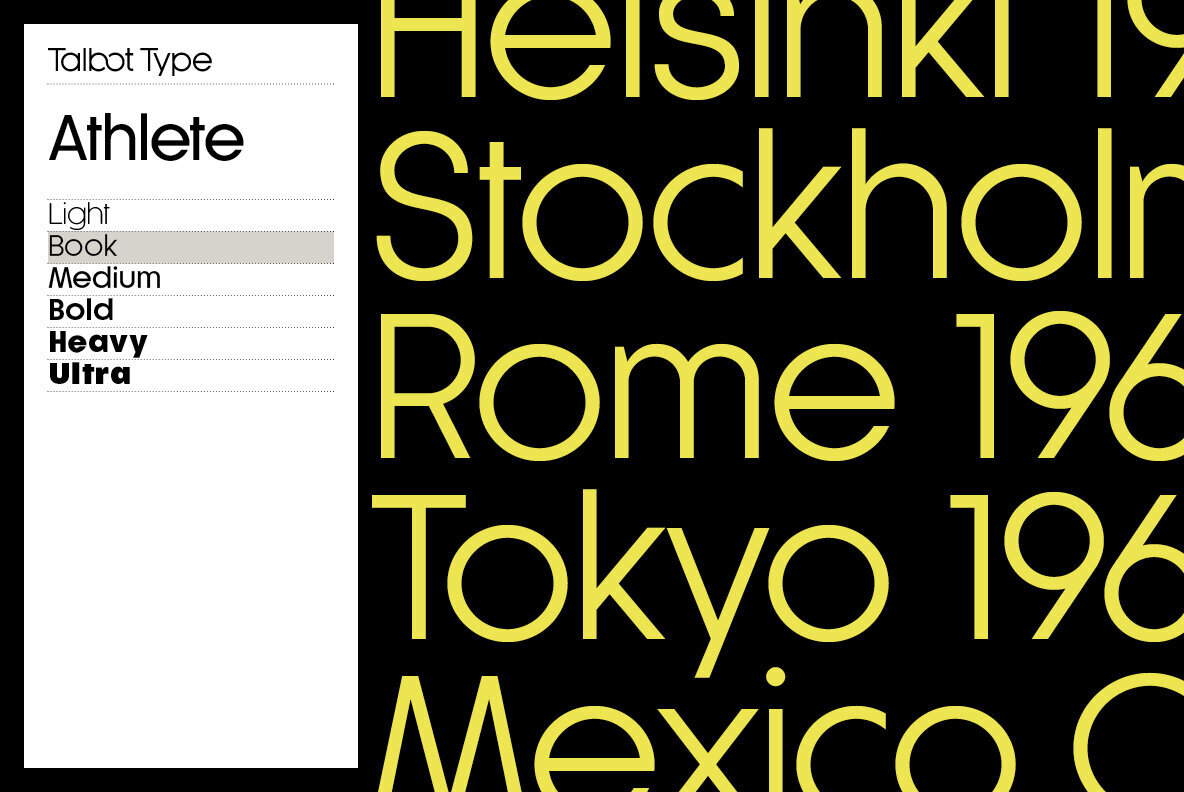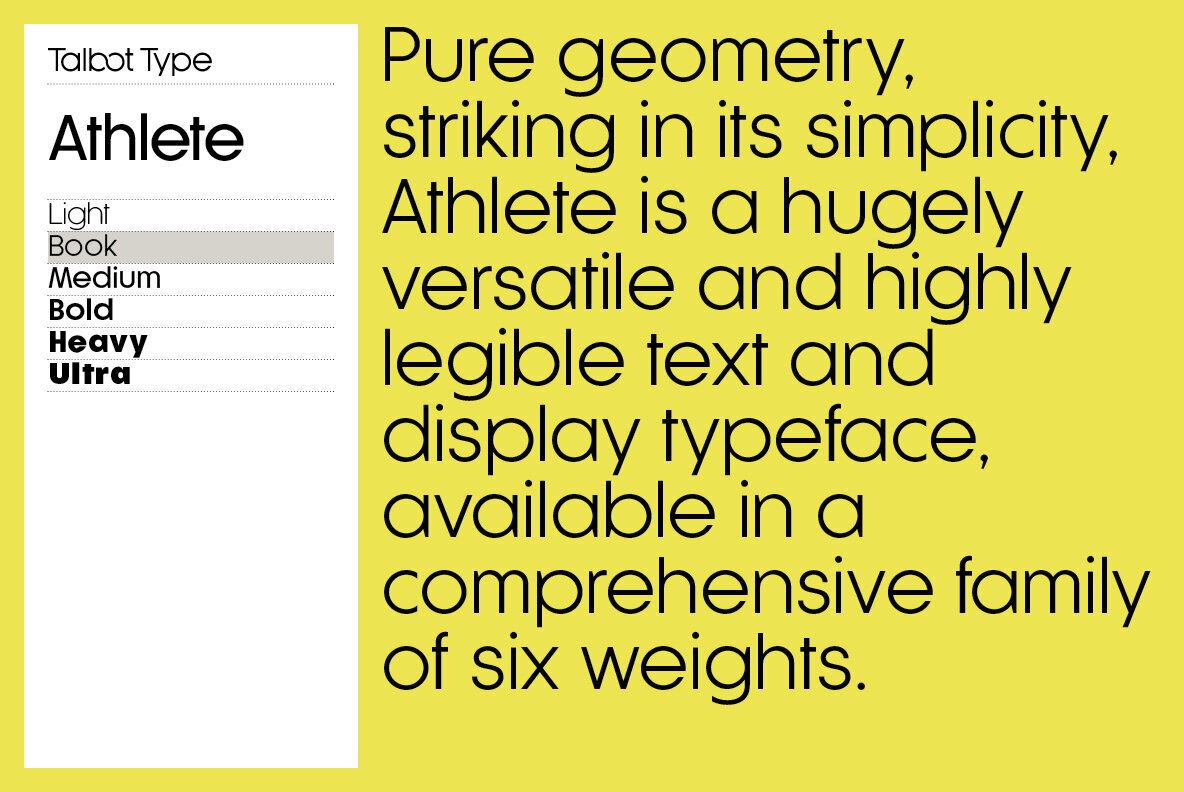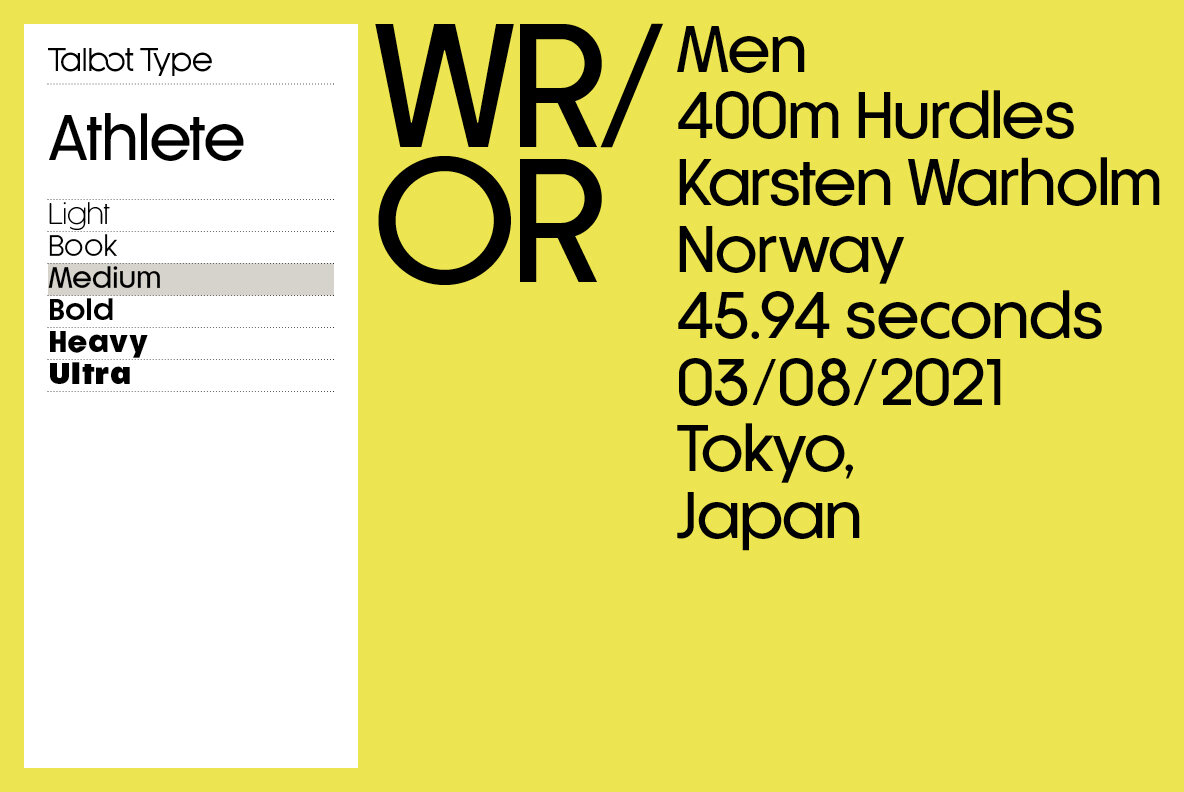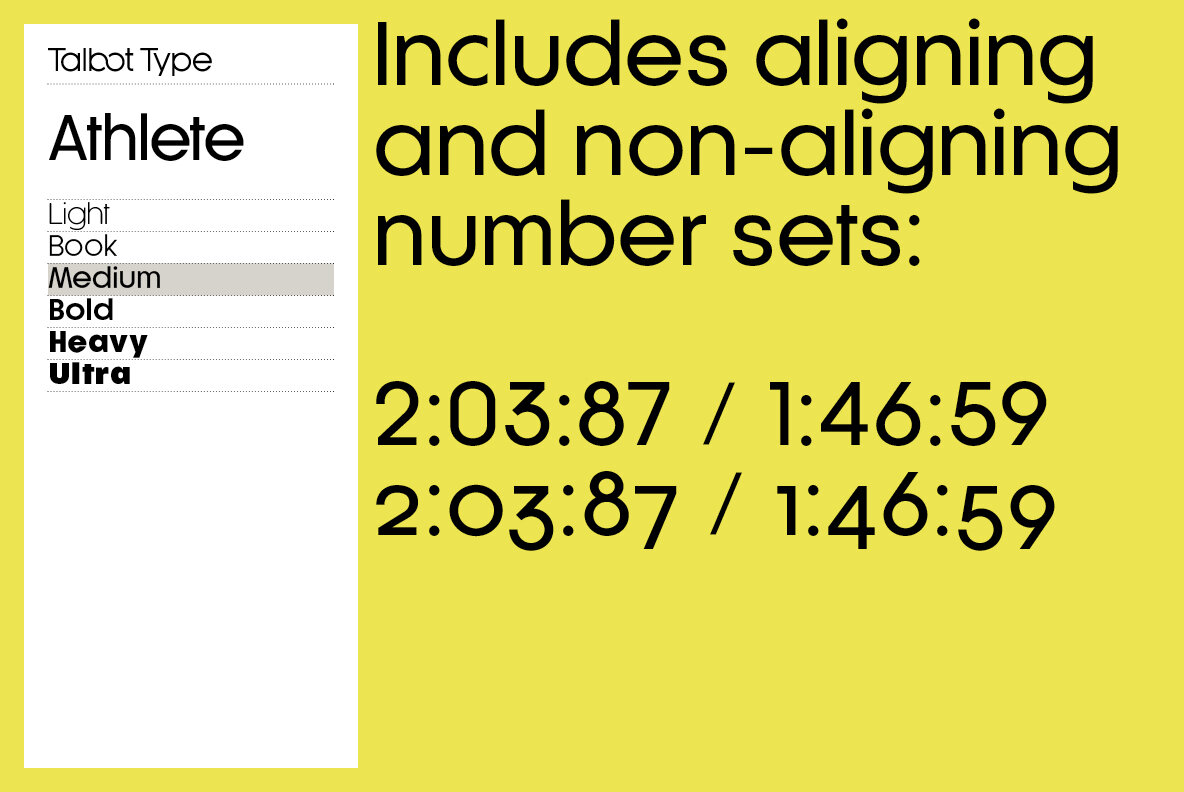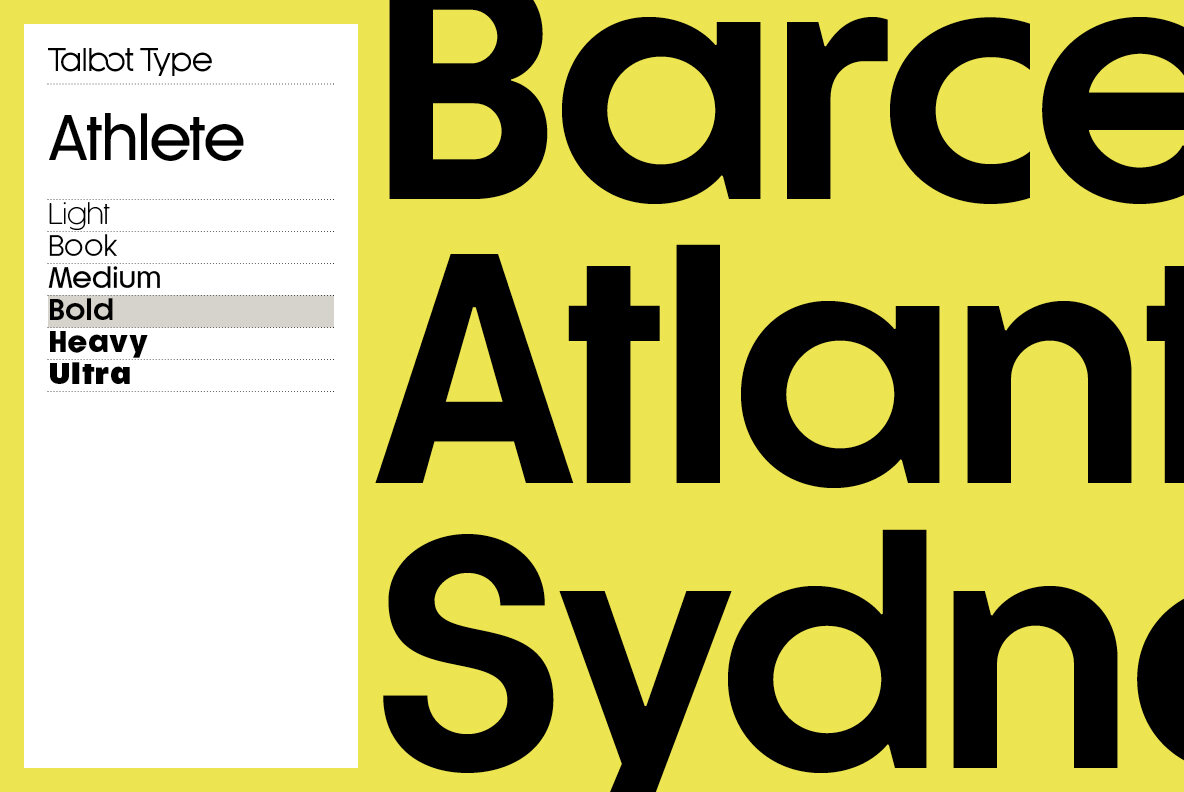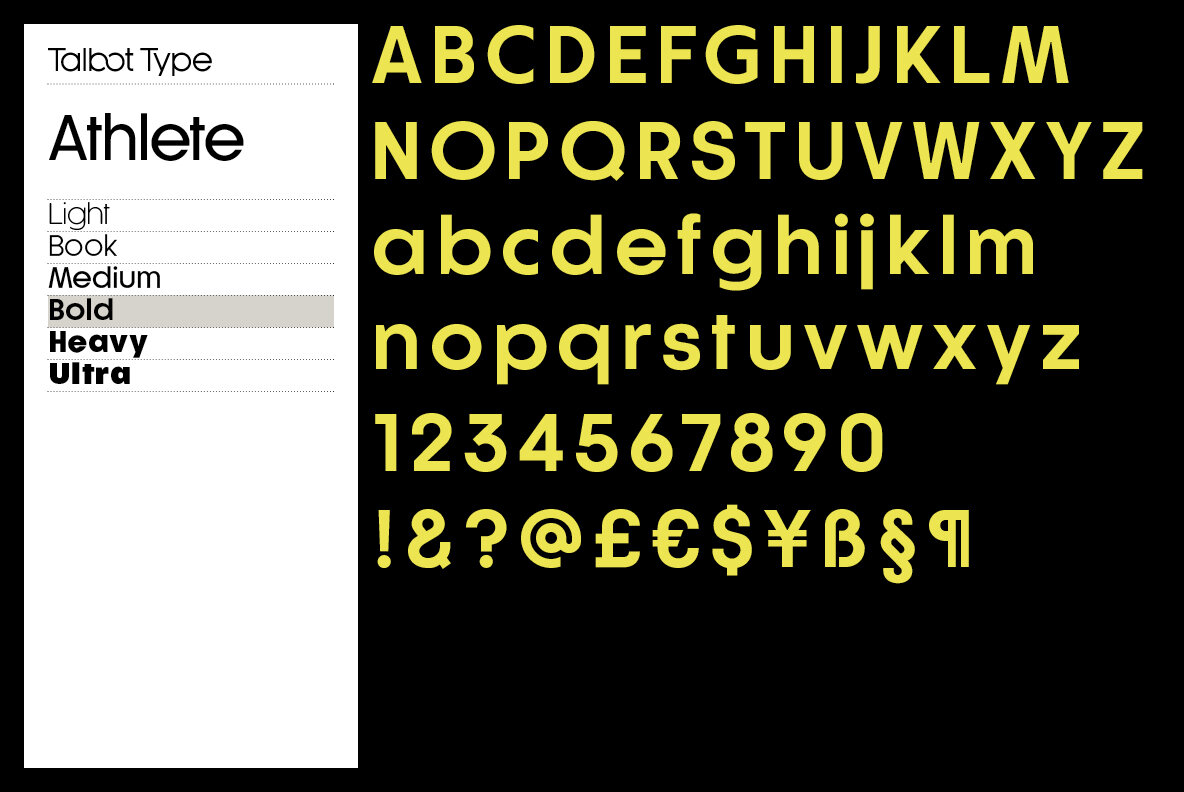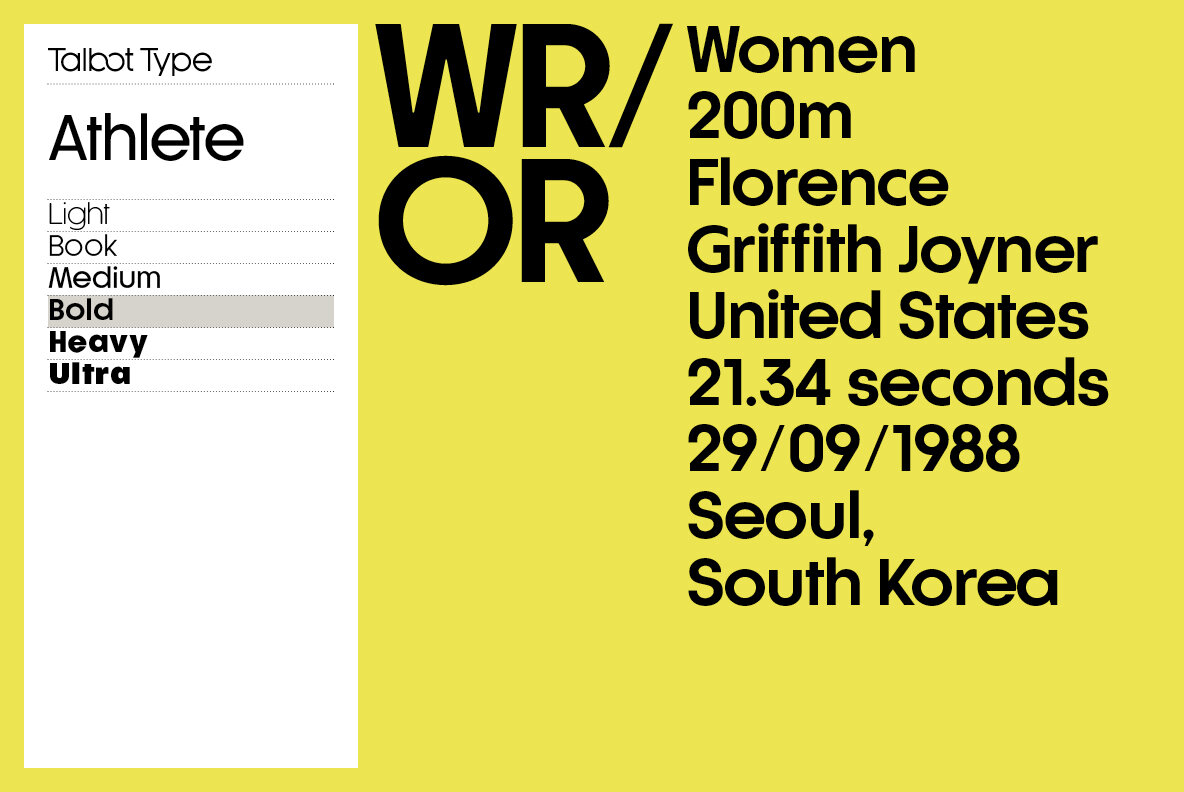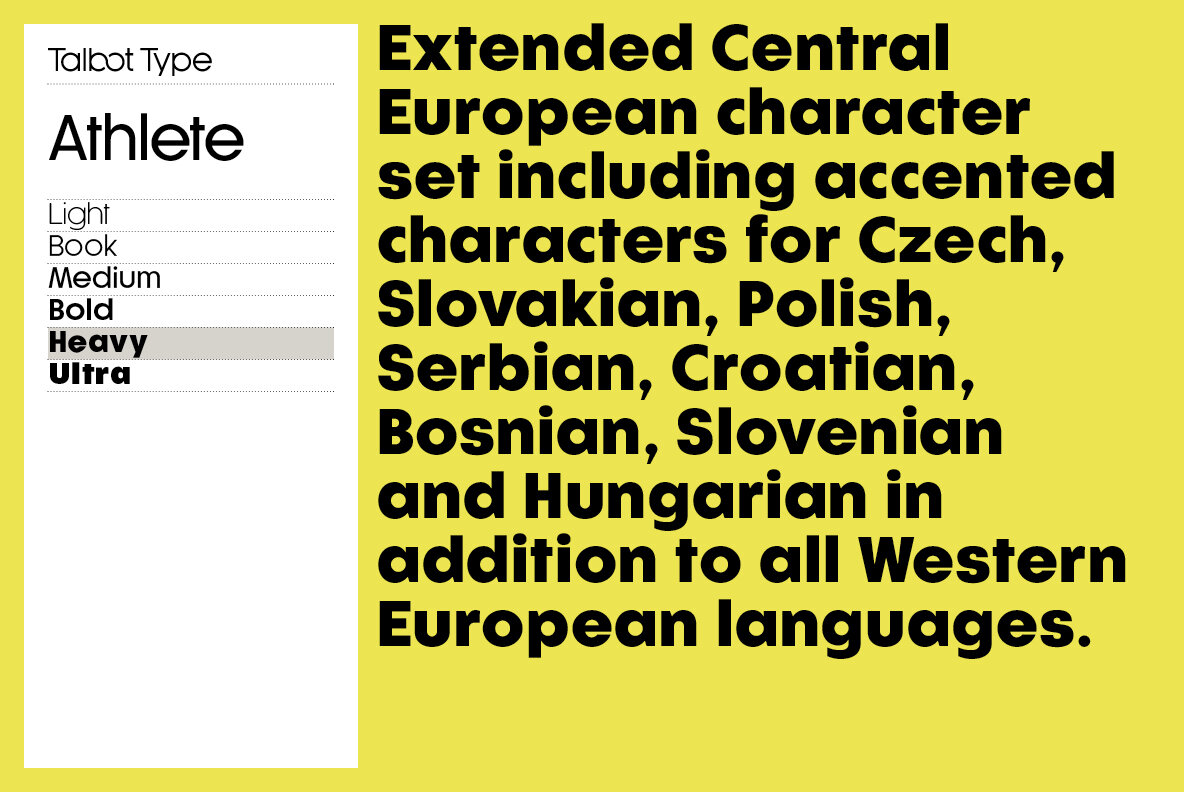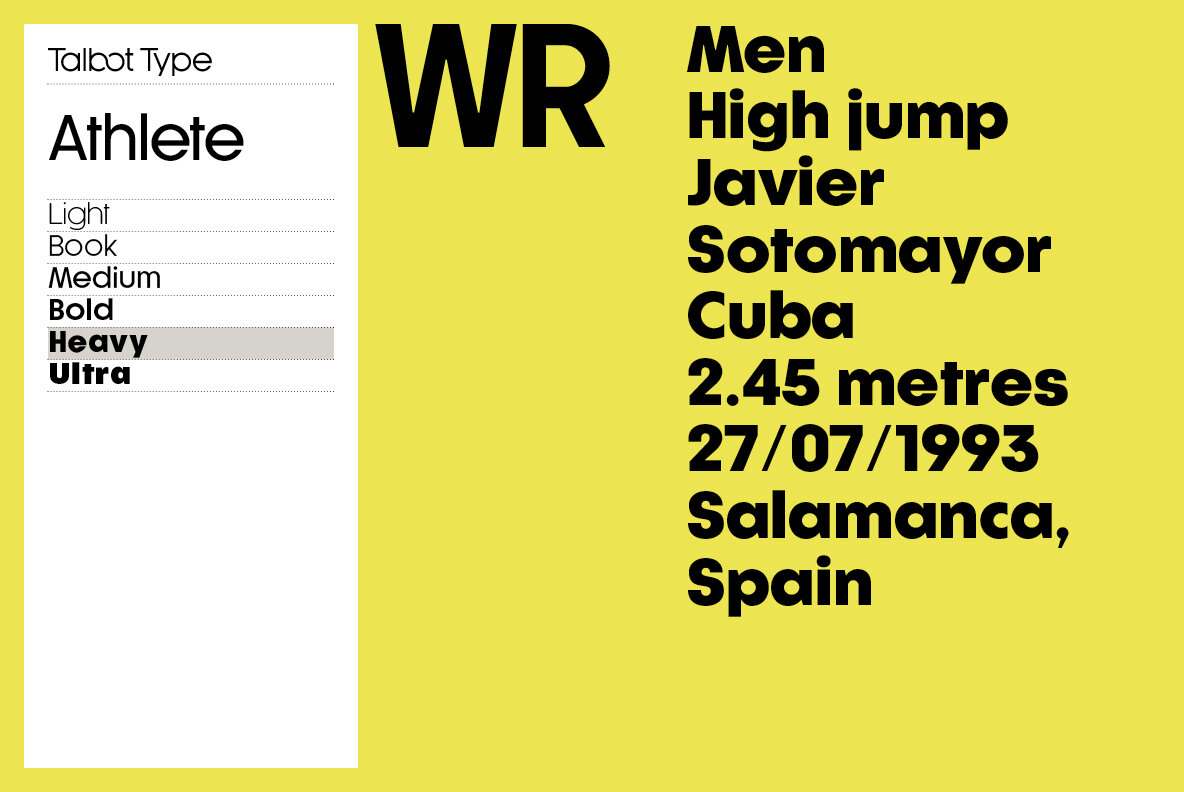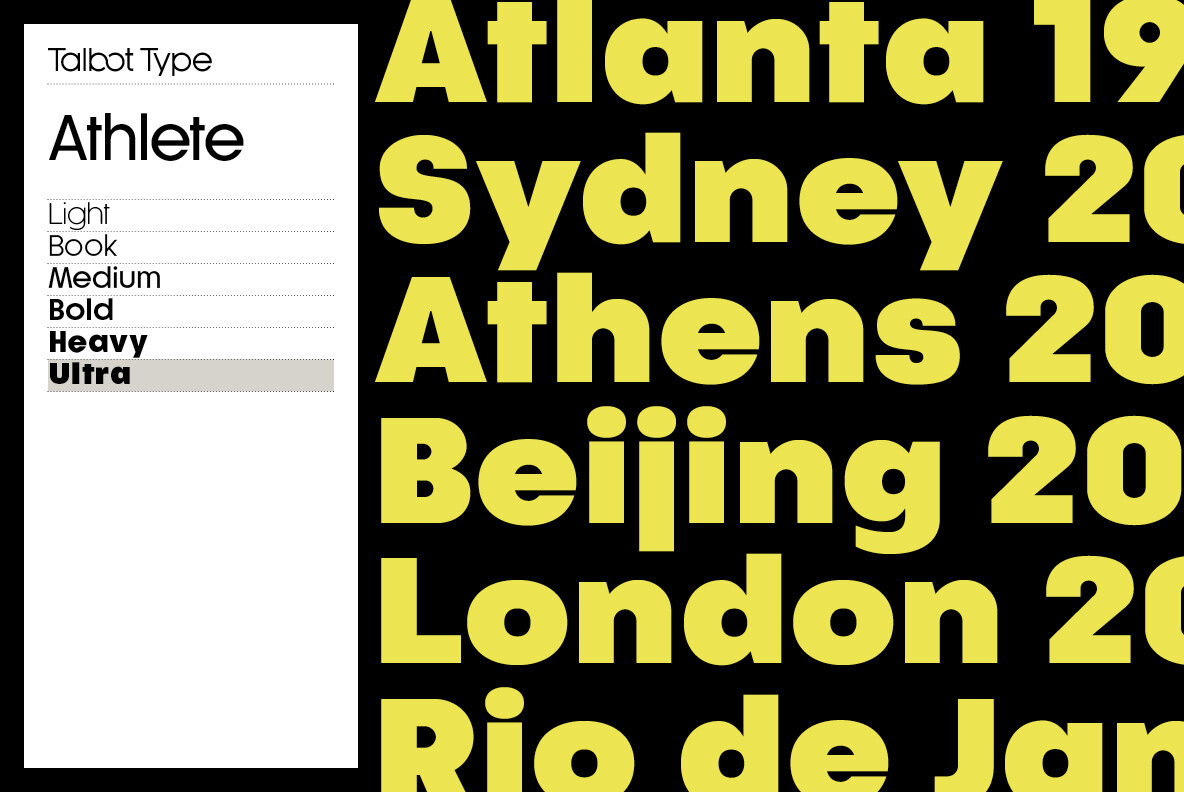
Athlete Font
Athlete is a highly legible, geometric text and display font. Inspired by classic sans-serifs Futura and Gill Sans, this elegantly minimal typeface blends traits of these twentieth century classics – both now nearly 100 years old – and is available in a comprehensive family of six weights. It includes old style non-aligning (lower case) numbers, both proportional and tabular, as well as accented characters for Central European languages. A versatile, contemporary sans-serif, Athlete is suitable for more-or-less any text or display purpose.